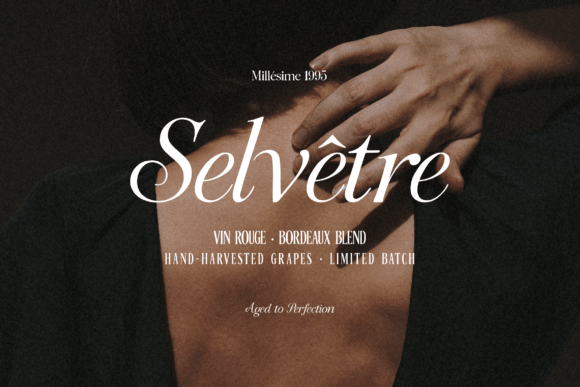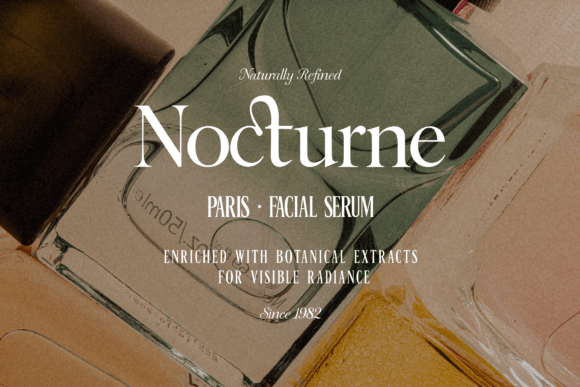
Maison Galliard Font
Introducing Maison Galliard – a Trio of Editorial Fonts of impeccable charm! A masterpiece featuring three unique styles – Serif, Sans Condensed, and Script – Maison Galliard marries Parisian editorial style from the 1960s with Renaissance type aesthetics. This versatile triad was crafted to infuse your visual tales with timeless class and expressive allure. Browse Maison Galliard and indulge in its trio of fonts, enabling you to blend striking contrast, pure structure, and fluid handwriting into one harmonious system.
In this eye-catching assortment, you’ll discover:
-Maison Galliard Serif: A high-contrast editorial serif capturing the essence of sharp, triangular serifs and constricted proportions.
-Maison Galliard Sans: A sleek and refined, space-conserving sans condensed, designed for the creation of modern layouts and insightful subtext.
-Maison Galliard Script: A seamless, calligraphic script that’s perfect for composing graceful taglines, logos, and accents.
Maison Galliard is your go-to for crafting stunning editorial & magazine titles, high-end branding & packaging, eye-catching fashion lookbooks, breathtaking wedding invitations, unique logo signatures and refined social media posts, among others.
Design Inspiration? Maison Galliard ingeniously draws its rhythm from the contrast between traditional serif styles and modern minimalist equilibrium. Merge its three styles to generate vibrant typography systems that exude both a classic and contemporary vibe. Be intentional with your typography – with Maison Galliard, inviting heritage and elegance into your design narrative has never been easier.